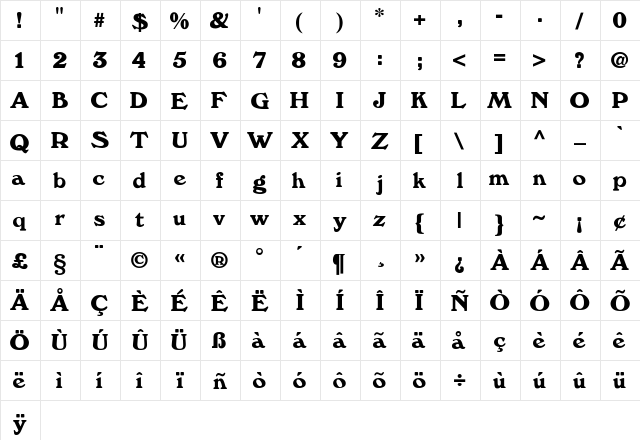
WindsorDemi Regular
Design Context for WindsorDemi Typeface
WindsorDemi takes a measured approach to typography — its balanced proportions and neutral character make it a reliable workhorse for both digital and print work.